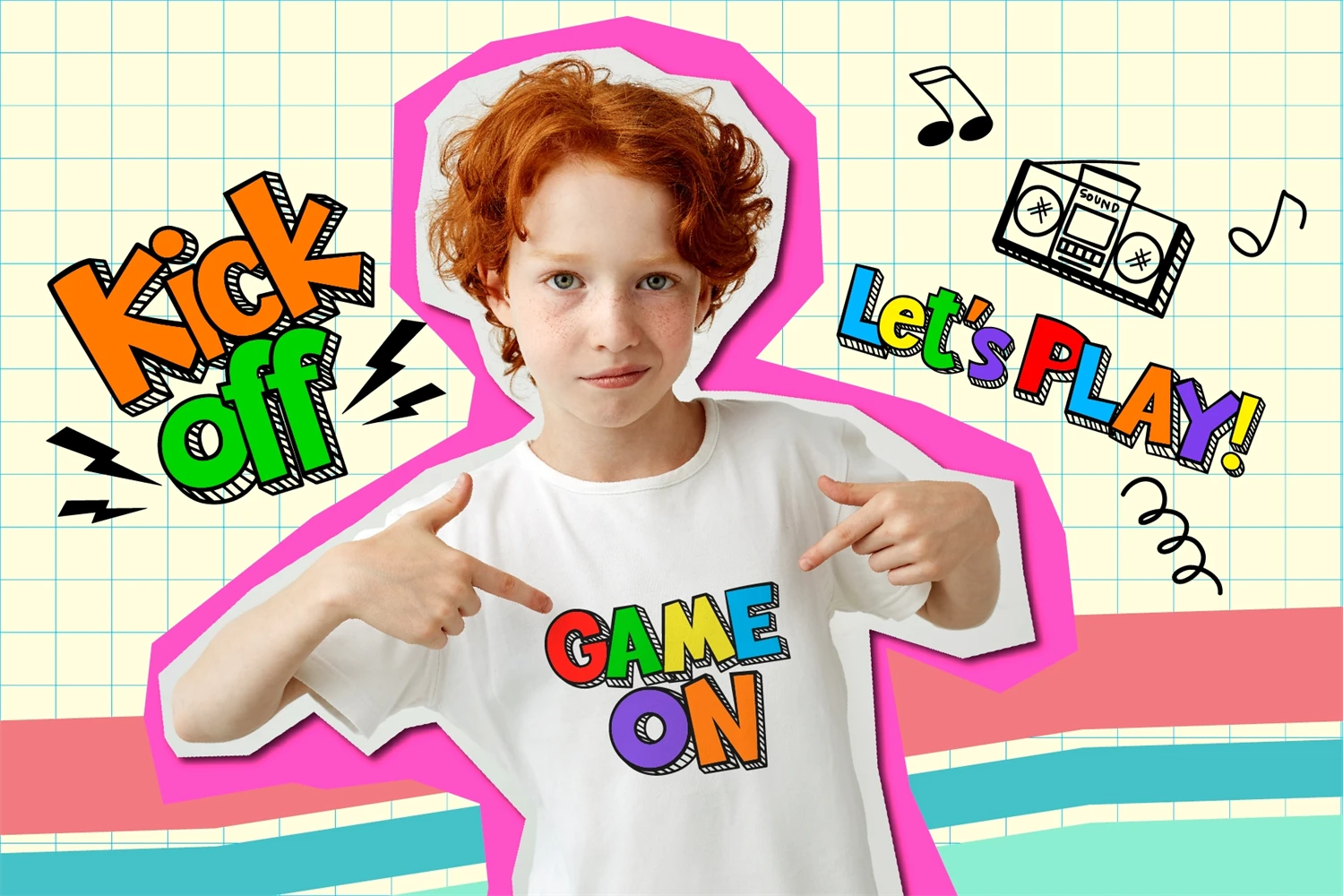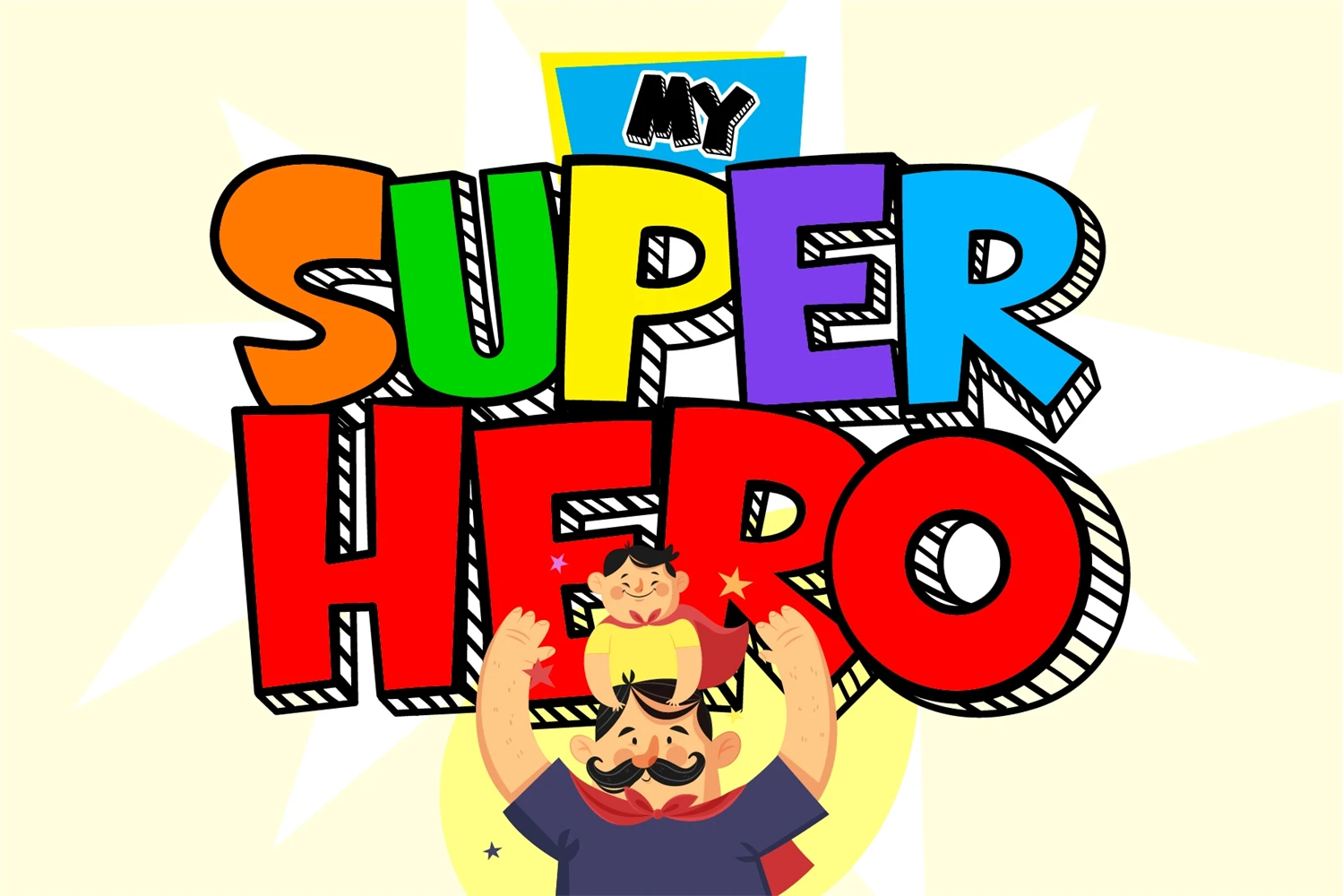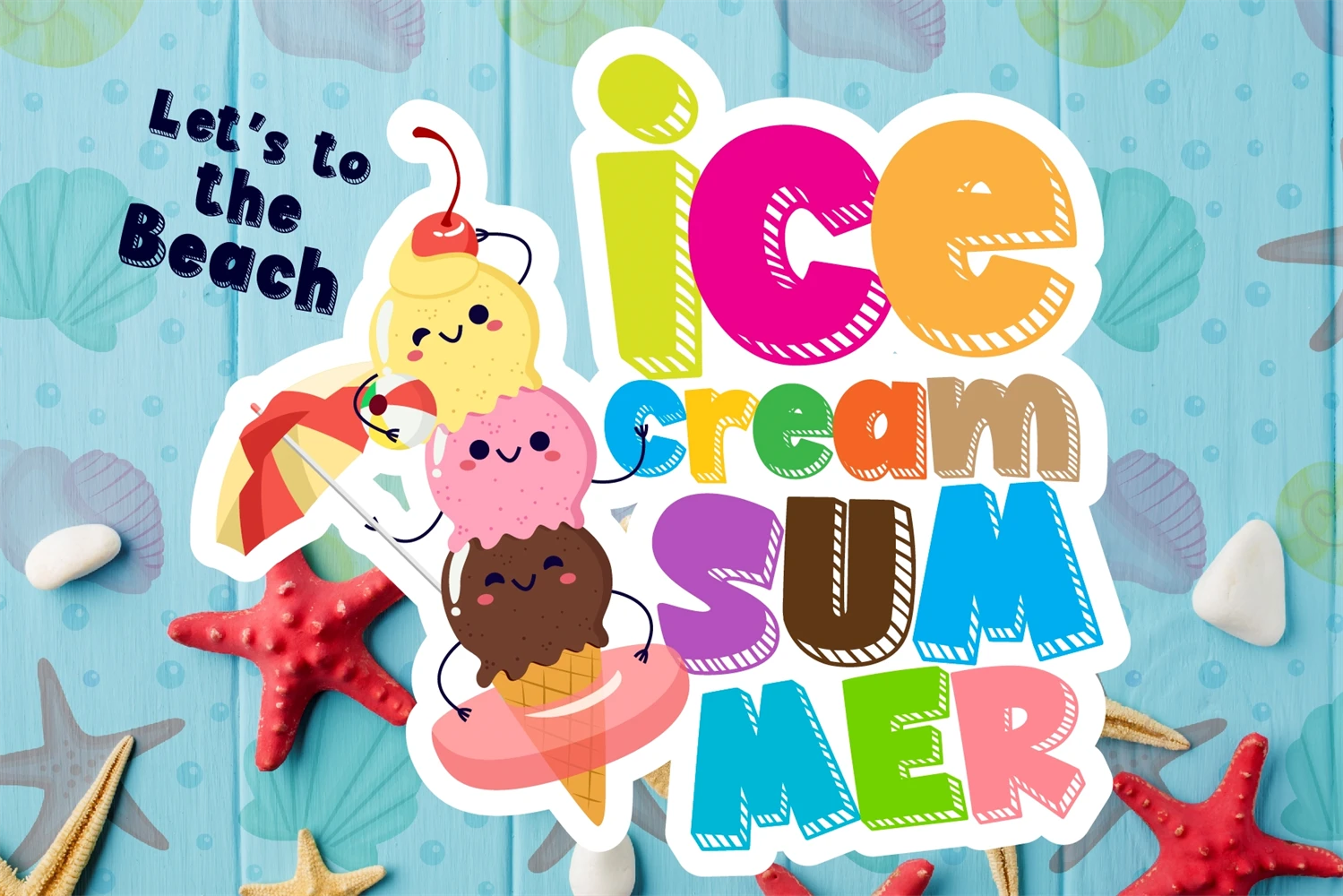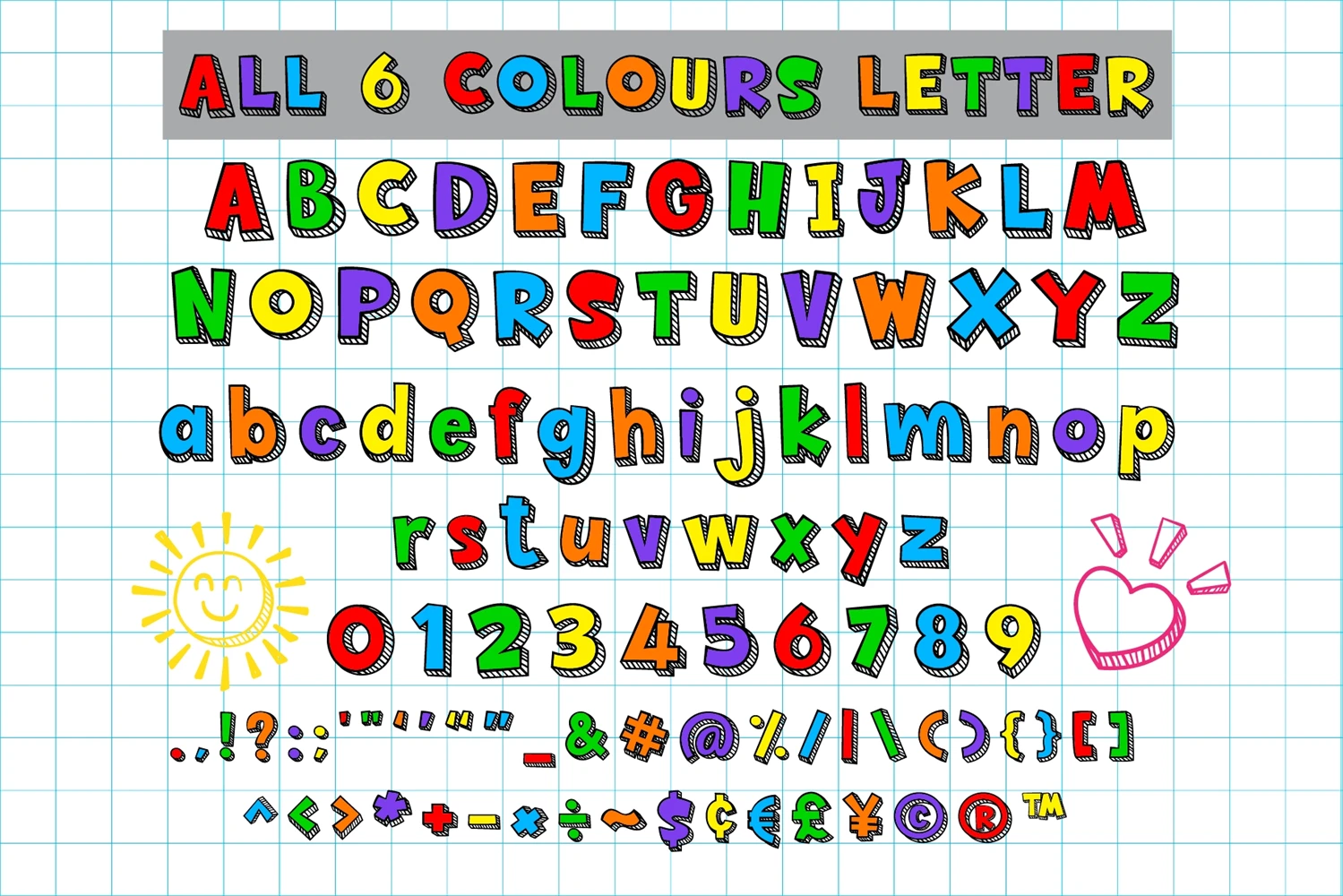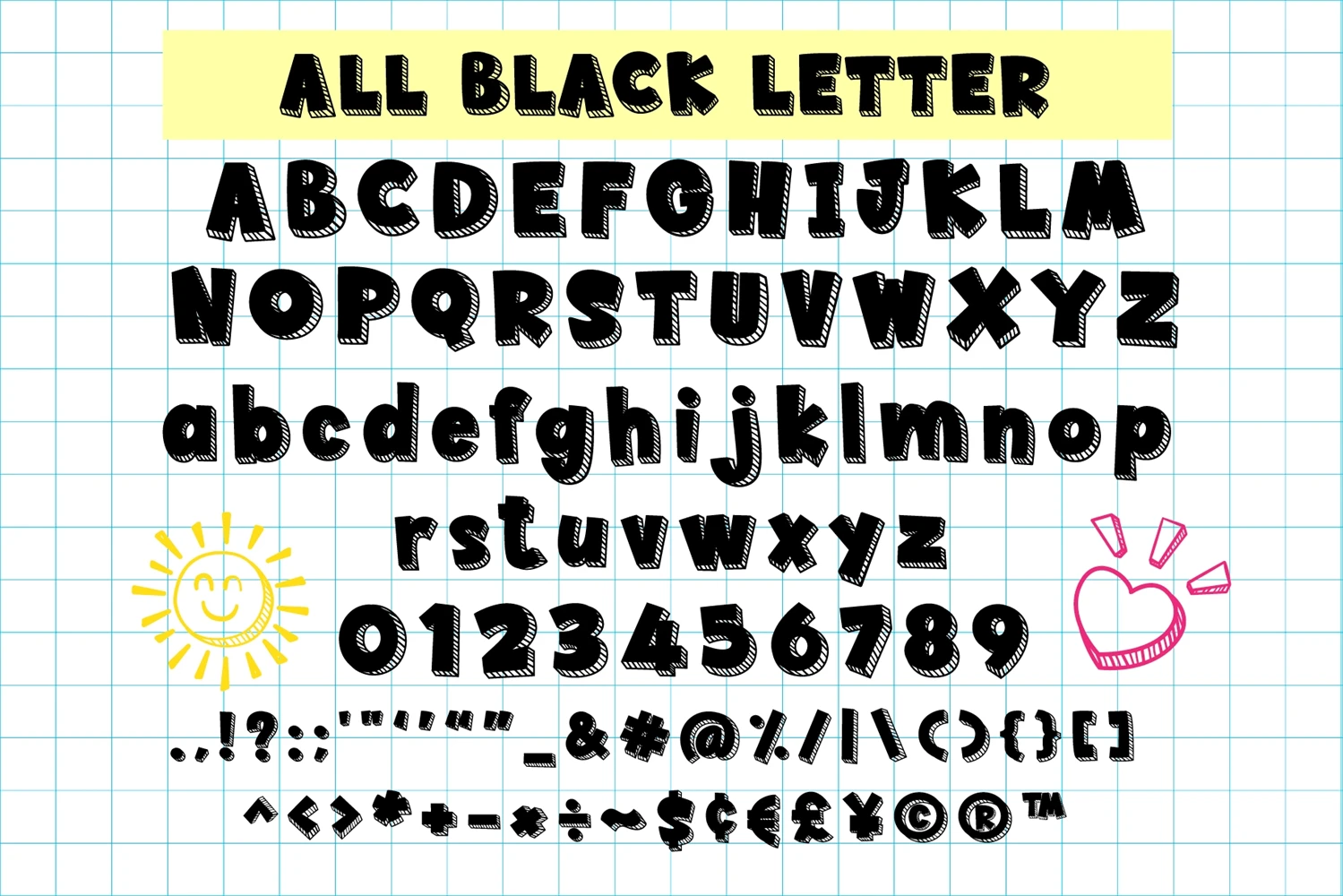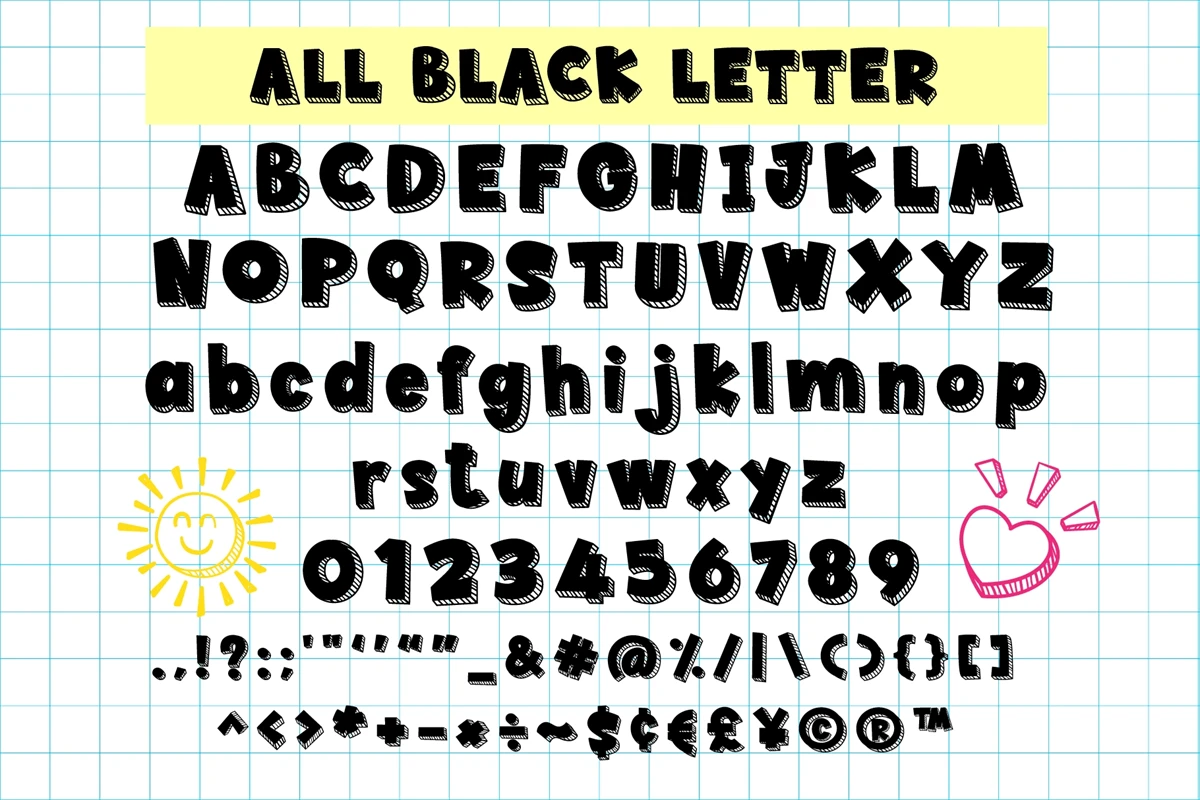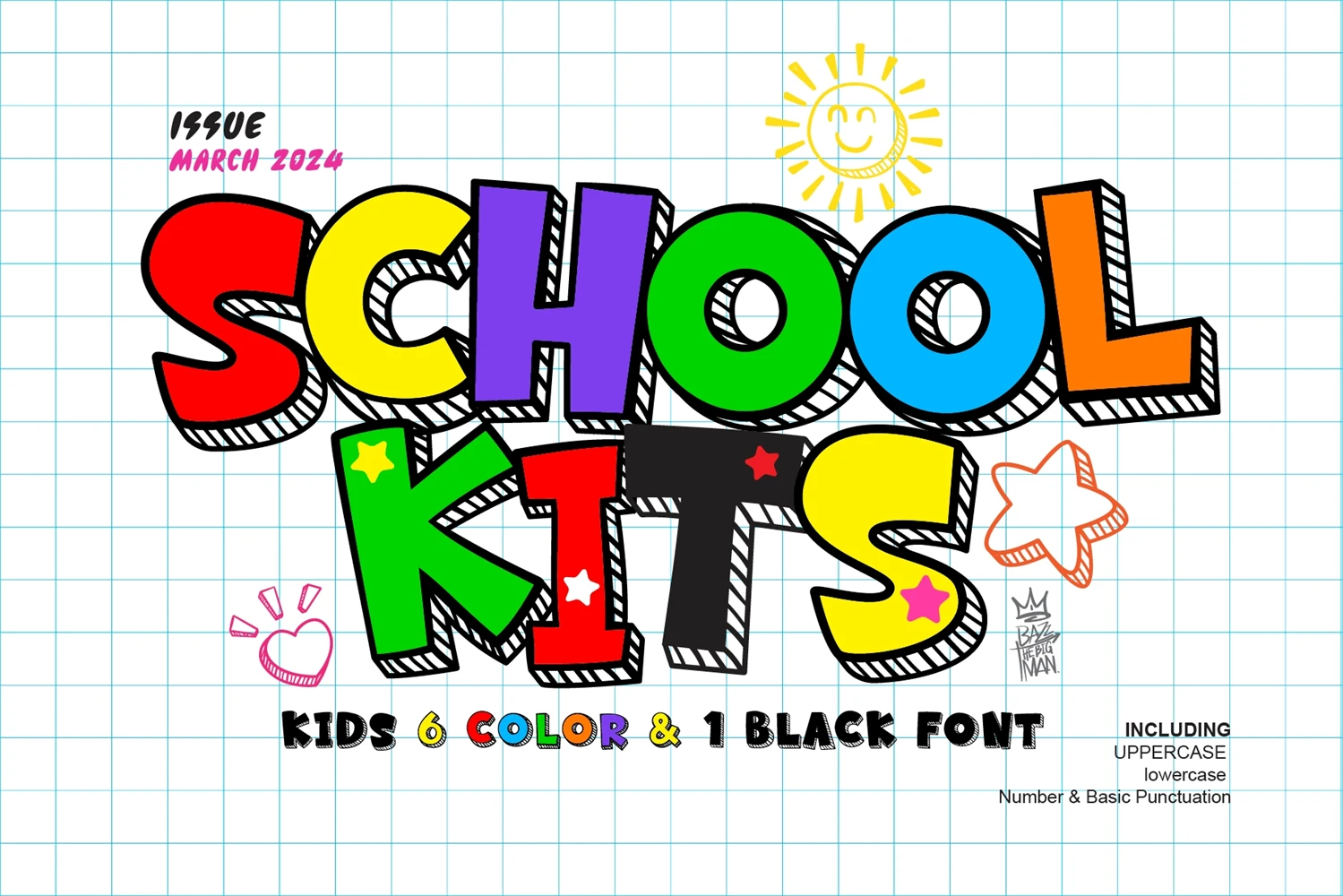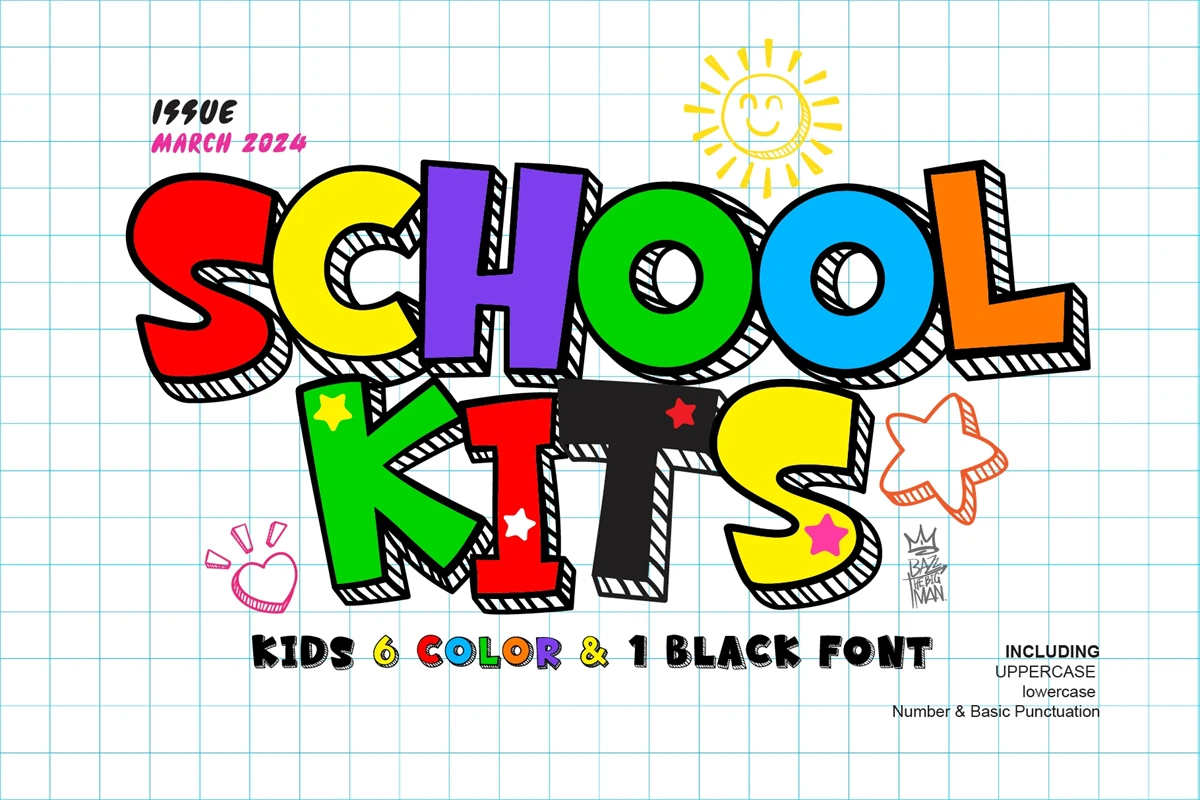
School kits is a fun Color Font and Decorative Font. You can use it to create unique designs, book covers, birthday cards, greeting cards, as well as many other creations that require a cute, friendly vibe.
6 color font
1 School kits red color
2 School kits blue color
3 School kits yellow color
4 School kits green color
5 School kits purple color
6 School kits orange color
and 1 decorative font (black font version)